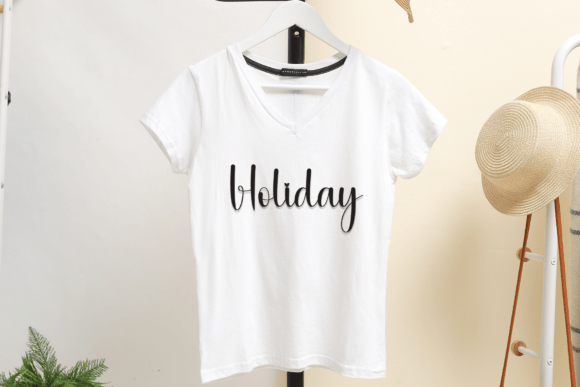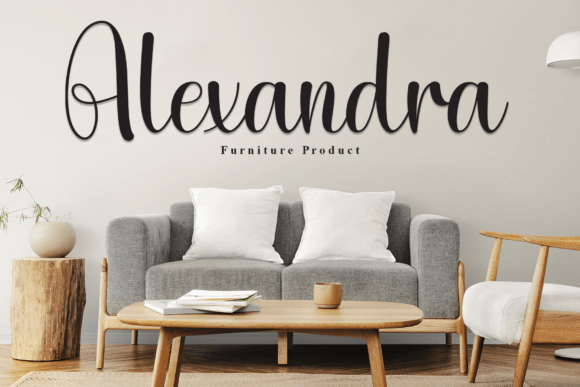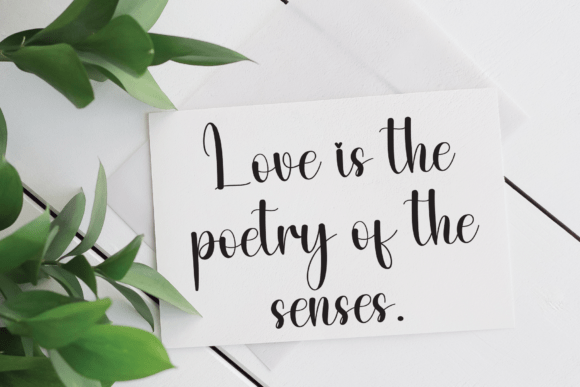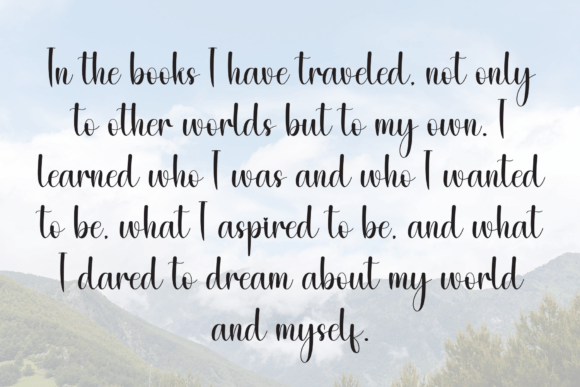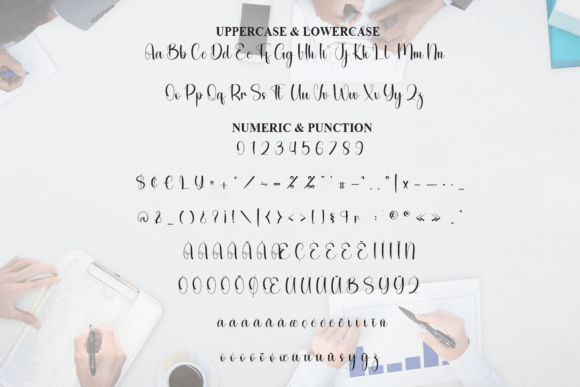
Introducing Action Font: The Mesmerizing Charm of Handcrafted Elegance
In the realm of typography, few fonts manage to capture the essence of warmth, friendship, and whimsy as effortlessly as Action Font. This handcrafted display font is a masterful blend of dynamic character and cozy charm, making it an exceptional choice for designers and crafters seeking to infuse their projects with a playful gust of fun. Whether you’re creating wedding invites, greeting cards, or any artistic endeavor demanding a sprinkle of joy, Action Font is the perfect design tool to enliven your work.
The Spirit of Innovation and Whimsy
Action Font is more than just a collection of letters; it’s an experience. It embodies the spirit of innovation and whimsy, inviting designers to push the boundaries of their creativity. With its unique blend of elegance and playfulness, this font is sure to captivate audiences and leave a lasting impression. Whether you’re a seasoned designer or a crafty enthusiast, Action Font is the perfect companion for anyone looking to add a touch of magic to their projects.
Unleashing Your Creativity with Action Font
One of the most significant advantages of Action Font is its versatility. Its charming, dynamic character makes it an excellent choice for a wide range of applications, from formal events like weddings and anniversaries to more casual projects like greeting cards and invitations. The font’s handcrafted nature ensures that each letter is infused with a sense of personality and warmth, making it perfect for designers and crafters who want to add a personal touch to their work.
Crafting Exceptional Projects with Action Font
So, what makes Action Font an exceptional choice for your next project? Here are just a few reasons why designers and crafters are falling in love with this mesmerizing font:
- Unique Character: Action Font boasts a distinctive, handcrafted charm that’s sure to set your project apart from the crowd.
- Versatility: Whether you’re creating formal or casual projects, Action Font’s dynamic character adapts effortlessly to any design.
- Emotional Connection: The font’s warm, friendly feel creates an instant emotional connection with your audience, making it perfect for projects that demand a personal touch.
- Playful Elegance: Action Font’s whimsical nature adds a playful gust of fun to any project, making it an excellent choice for designers and crafters seeking to infuse their work with a sense of joy.
Tips for Getting the Most Out of Action Font
To truly harness the creative potential of Action Font, here are a few expert tips to keep in mind:
- Experiment with Pairings: Combine Action Font with complementary fonts to create visually striking contrasts and hierarchies.
- Play with Size and Color: Don’t be afraid to experiment with different sizes and colors to add depth and visual interest to your design.
- Add Embellishments: Consider adding subtle embellishments or textures to enhance the font’s handcrafted charm.
In conclusion, Action Font is a game-changing design tool that’s sure to captivate designers and crafters alike. Its mesmerizing charm, dynamic character, and playful elegance make it an exceptional choice for anyone seeking to add a touch of warmth, friendship, and whimsy to their projects. Whether you’re creating wedding invites, greeting cards, or any artistic endeavor demanding a sprinkle of joy, Action Font is the perfect companion for creators seeking to enliven their work with a playful gust of fun.